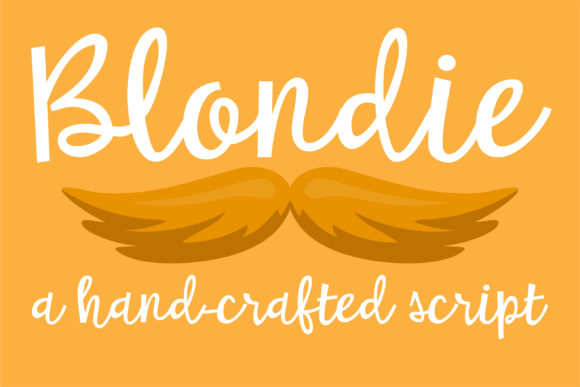
The Blondie Font: A Hand-Crafted Script for Creative Expression
I’ll never forget the moment I stumbled upon the Blondie font while working on a craft project for a client. I was searching for a font that would add a personal touch to her handmade journal, something that would make it stand out from the usual sans-serifs and serif fonts. As I scrolled through my font library, Blondie caught my eye – a casual, hand-crafted script with a medium weight that seemed perfect for crafting, journaling, and more.
I’ve had the pleasure of working with Blondie font for a while now, and here’s my honest review:
- ✨ I love its unique, hand-crafted feel that adds a personal touch to any project.
- ✅ The medium weight makes it versatile for various applications, from digital designs to print materials.
- ✅ It’s surprisingly legible, even at smaller font sizes.
However, I do have to mention a few quirks:
- 🤔 Some of the letters, like the ‘g’ and ‘y’, have a slightly quirky feel that might not appeal to everyone.
- ⚠️ The font doesn’t have an extensive range of weights, which might limit its use in certain projects.
The Designer Inspiration Behind Blondie
Blondie was designed with the intention of creating a font that would evoke a sense of warmth and personality. The designer, inspired by traditional handwriting and lettering, aimed to create a font that would feel approachable and relatable. The result is a font that feels like it was written by hand, with all the quirks and charm that come with it.
| Font Name | Blondie Font |
| What is the Blondie font best used for? | The Blondie font is best used for creative projects, such as crafting, journaling, and handmade designs. It’s also suitable for digital designs, like social media graphics and blog posts. |
| Is Blondie a versatile font? | Yes, Blondie is a versatile font that can be used for various applications, from digital designs to print materials. Its medium weight and legibility make it suitable for a wide range of projects. |